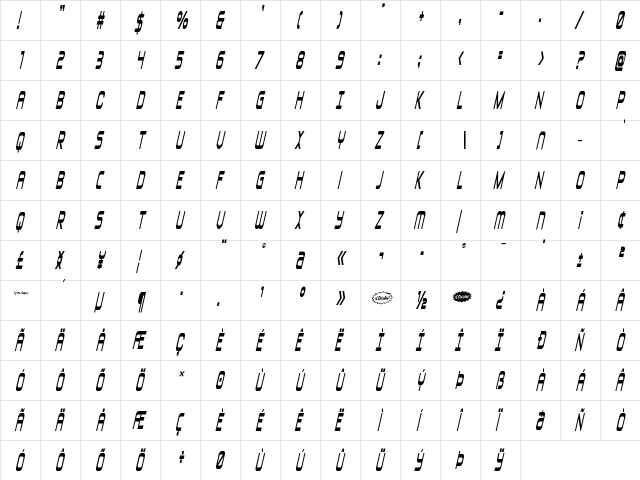
Blizzard Shaft Condensed SemIt Regular
Design Context for Blizzard Shaft Condensed SemIt Typeface
Blizzard Shaft Condensed SemIt is a composed and adaptable typeface that performs quietly and consistently across a wide range of design contexts. The condensed width makes it efficient for tight spaces without sacrificing legibility.